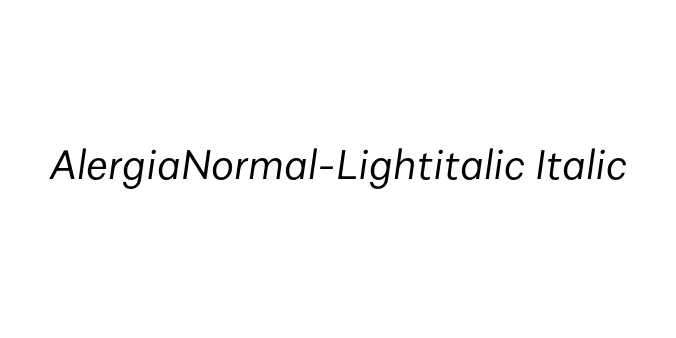
AlergiaNormal-Lightitalic Italic
Designed by Mateusz Machalski
Alergia Normal Light Italic is a sophisticated hybrid typeface designed by the renowned Polish typographer Mateusz Machalski. This font belongs to the Alergia super-family, which was conceptualized as a bridge between geometric linear antiquas and functional grotesques. The Light Italic weight specifically provides a graceful, slanted aesthetic that enhances text with a sense of motion and modernity without compromising readability.
Constructed with a high degree of precision, the font features open apertures and a balanced x-height, making it exceptionally versatile for both digital screens and high-quality print production. Whether used for editorial design or corporate communication, Alergia Normal Light Italic brings a refined, contemporary character to typographic hierarchies, offering designers a wide range of stylistic alternates to customize their work.
AlergiaNormal-Lightitalic Italic Best Uses
Excellent for emphasizing quotes or creating stylish subheadings in lifestyle magazines.
Works beautifully for minimalist logos and high-end corporate stationery.
Adds a sophisticated touch to clean, modern web interfaces and mobile apps.
Highly effective for brochure layouts and luxury packaging typography.